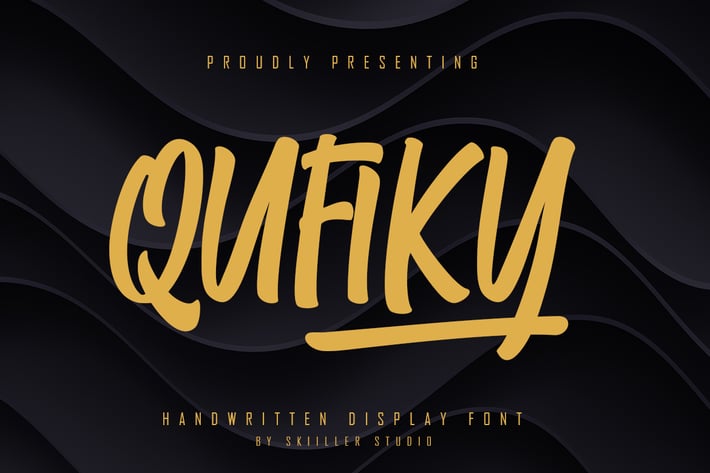
Qufiky Handwritten Display Font
Qufiky Handwritten Display Font. It looks beautiful on a variety of designs requiring a personalized style, such as wedding invitations, thank you cards, weddings, greeting cards, logos and so on. This font is PUA encoded which means you can access all of the glyphs and swashes with ease!
+ Ligature
+ Alternate
+ Basic Latin Language Support (AÀÁÂÃÄÅCÇDÐEÈÉÊËIÌÍÎÏÑOØÒÓÔÕÖUÙÜÚÛWYÝŸÆß )